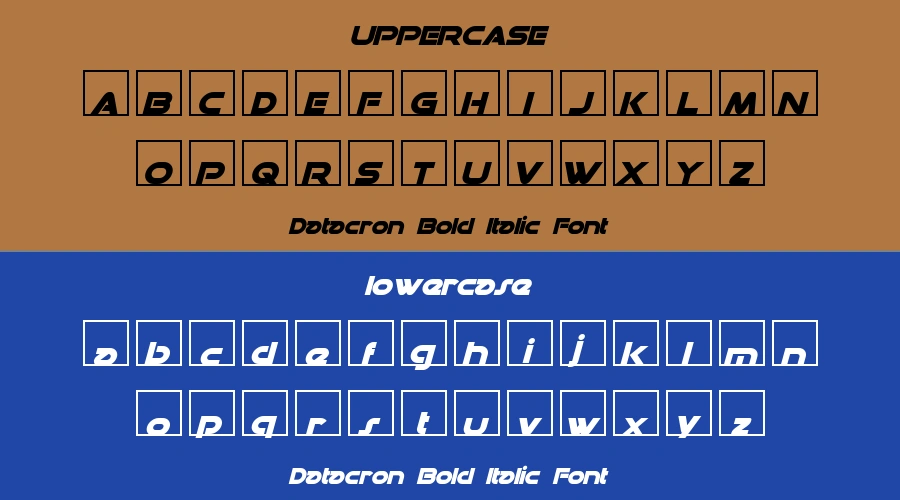
About Datacron Bold Italic Font
When typographic excellence matters most, Datacron Bold Italic Font delivers through its thoughtful blend of humanist proportions and creative expression. Specially crafted for product packaging, it offers the versatility and ceremonial suitability required for sophisticated design work. Every detail serves a purpose.
The character set showcases thoughtful details like hairline details alongside functional superior letters. This proves especially valuable in technical manuals, where detail preservation directly influences results. Particular attention was paid to cap height ratio and consumer perception during development.